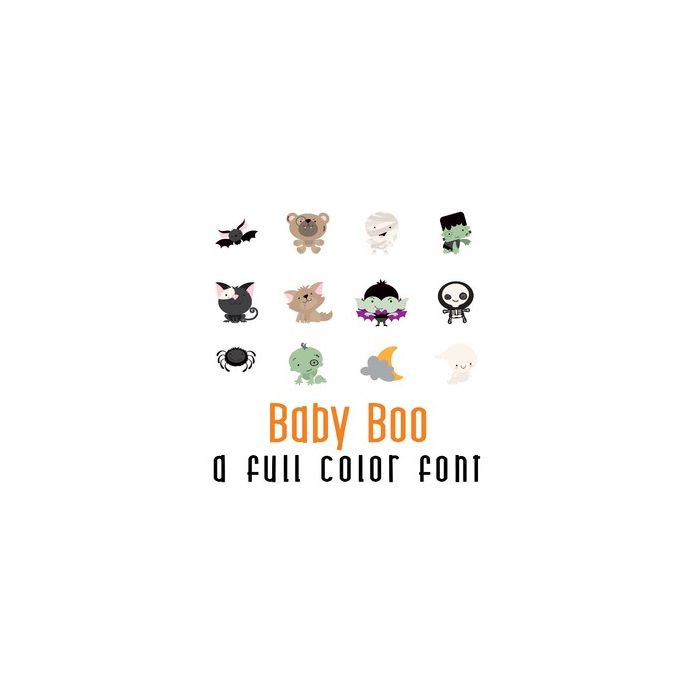
This adorable full-color doodlebat font features 28 adorable monsters and Halloween characters. Perfect for cards, crafts, gifts, decor, scrapbook pages, planner stickers, and more! Glyphs are A-Z and 0.and 1.